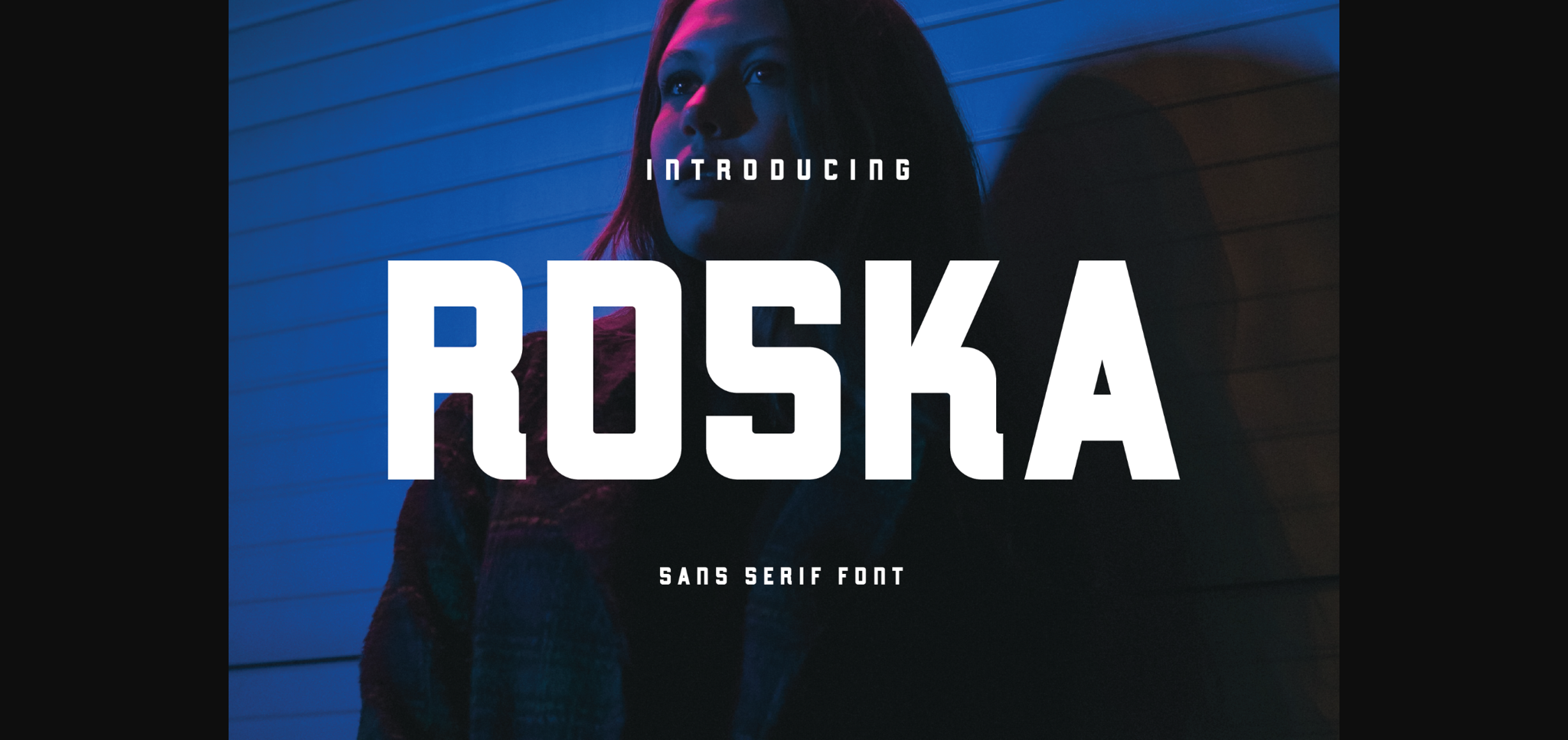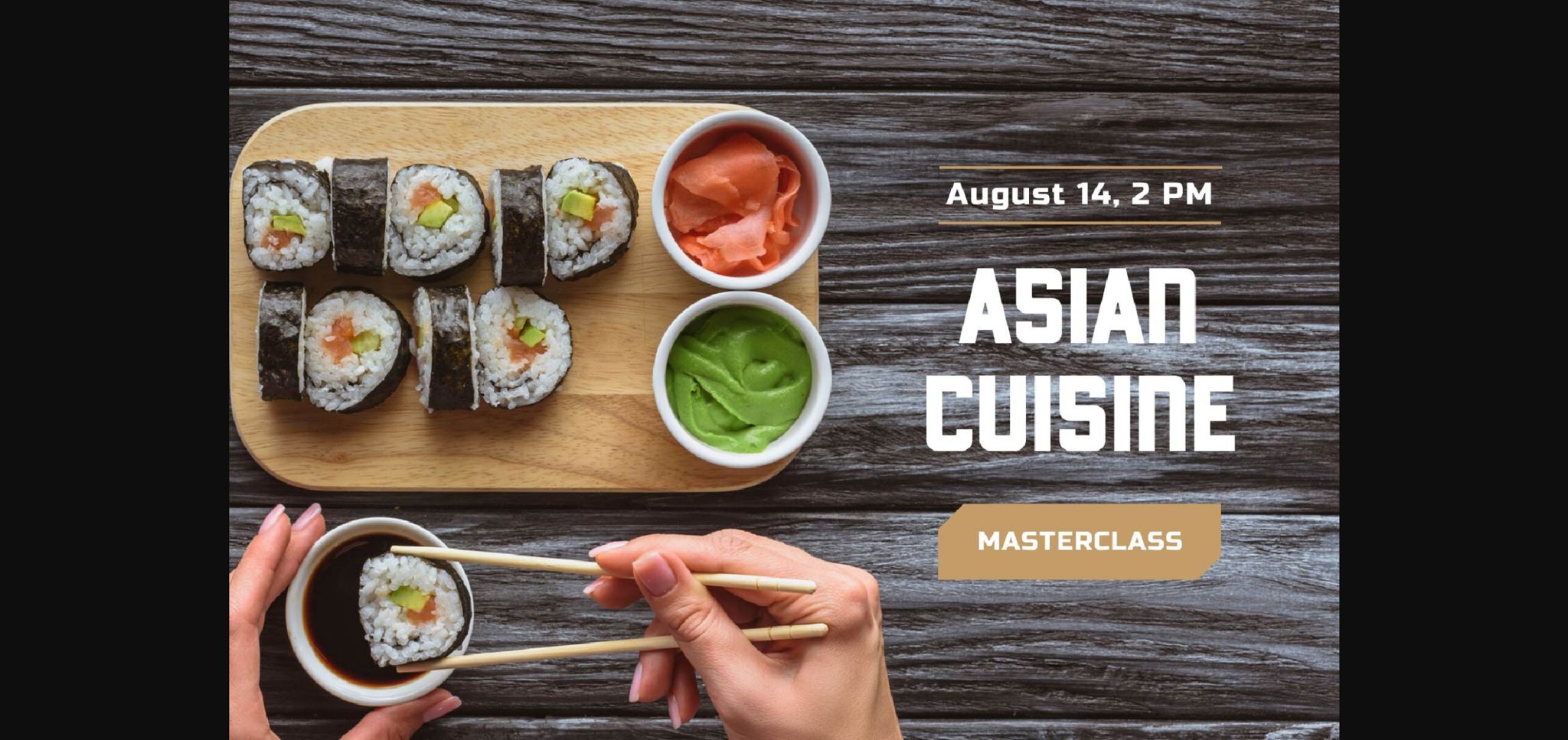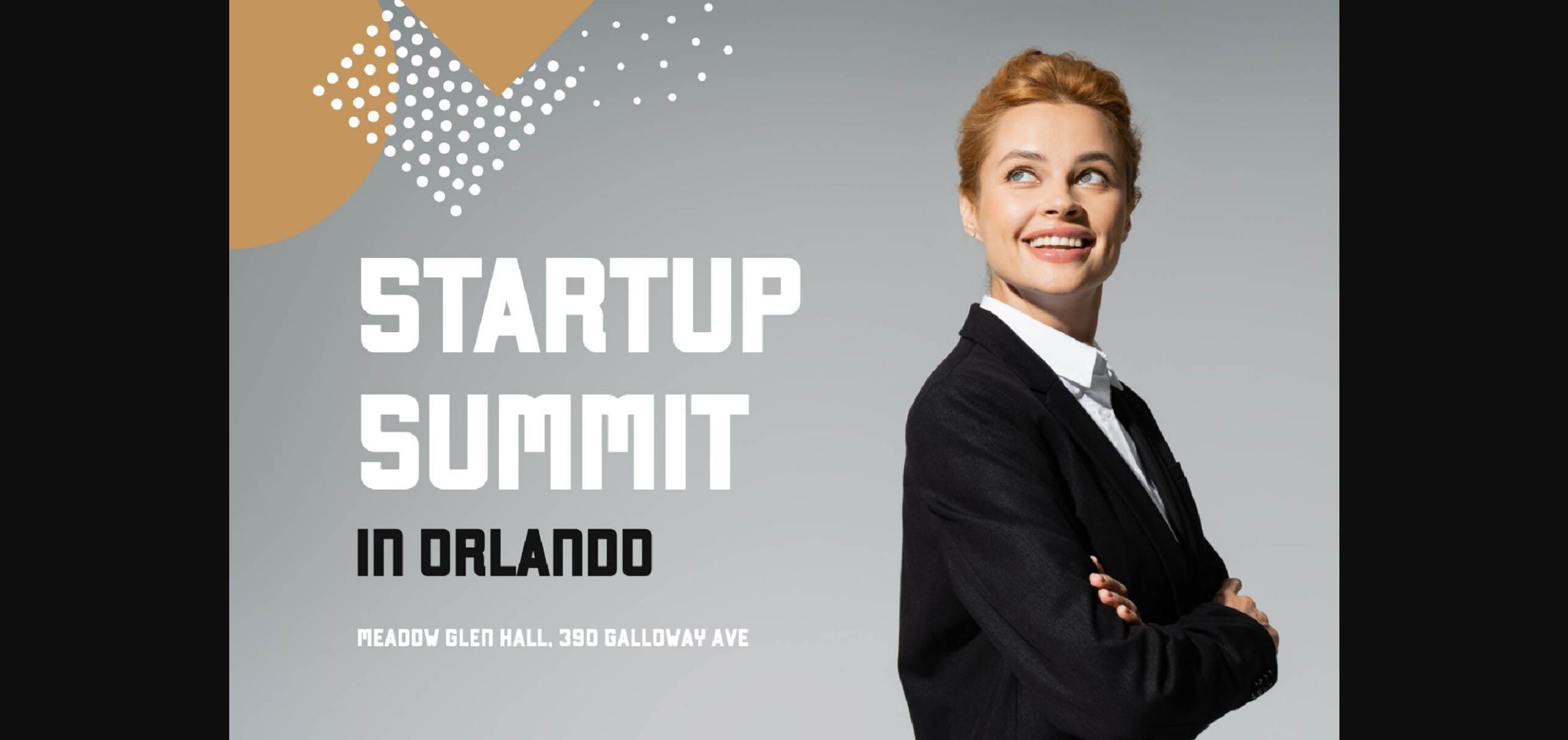
About Roska Font
Roska is a sans serif font inspired by the famous minimalist logo perfect for the purposes of designing templates, brochures, videos, advertising branding, logos, invitation, layout design, elegant crafting, beauty design and other.